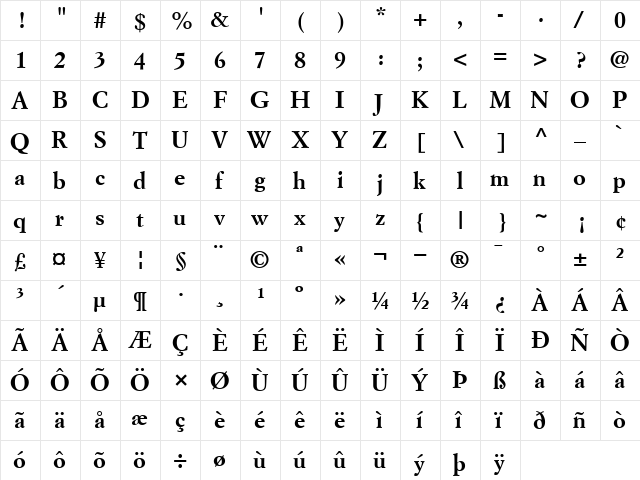
SimonciniGaramond Bold
Design Context for SimonciniGaramond Typeface
SimonciniGaramond offers clean, dependable letterforms without strong stylistic allegiance, making it a practical choice for designers who need flexibility. The heavy weight commands attention and anchors typographic hierarchies.